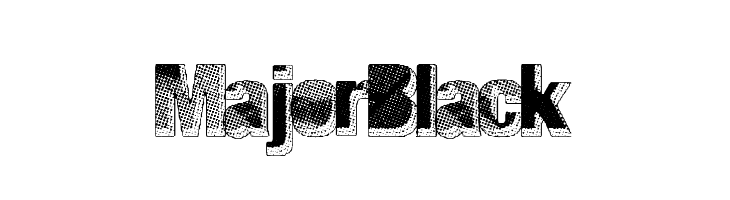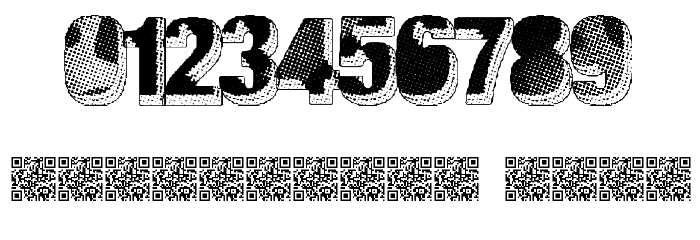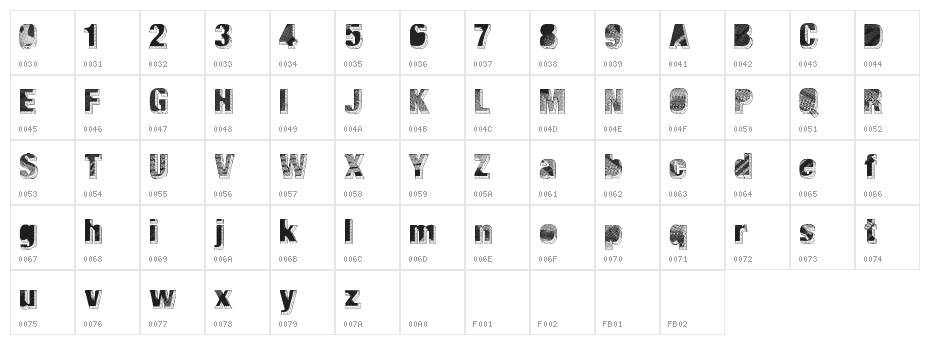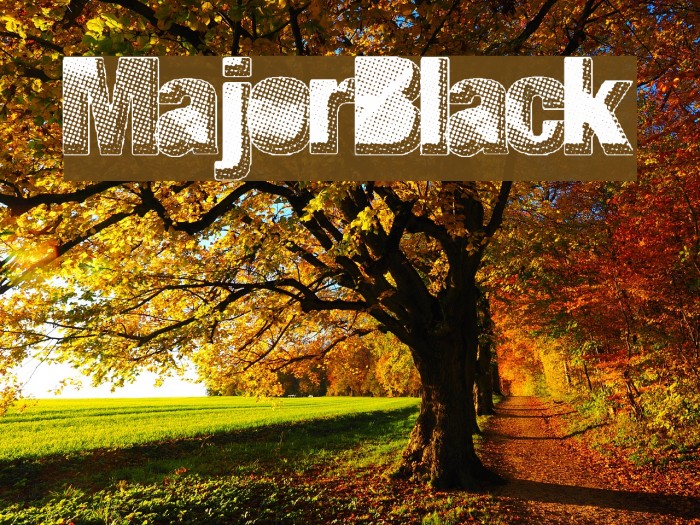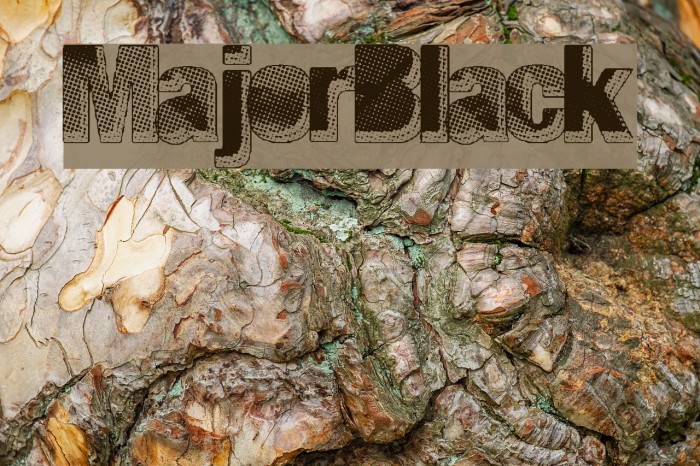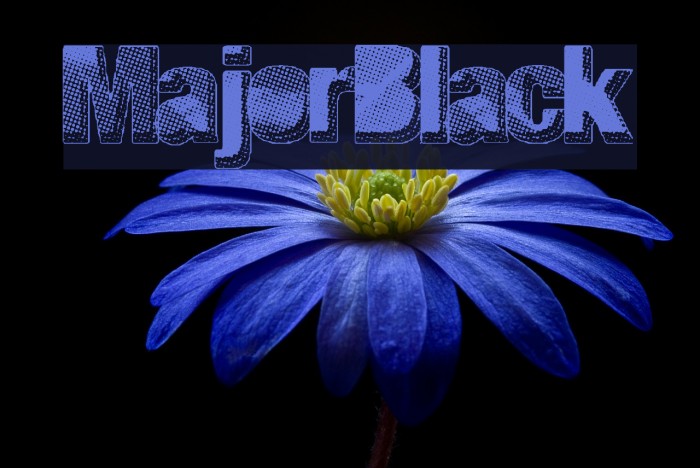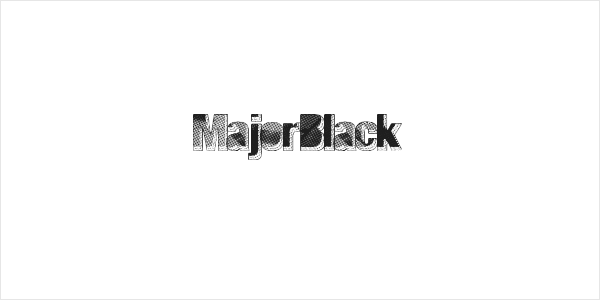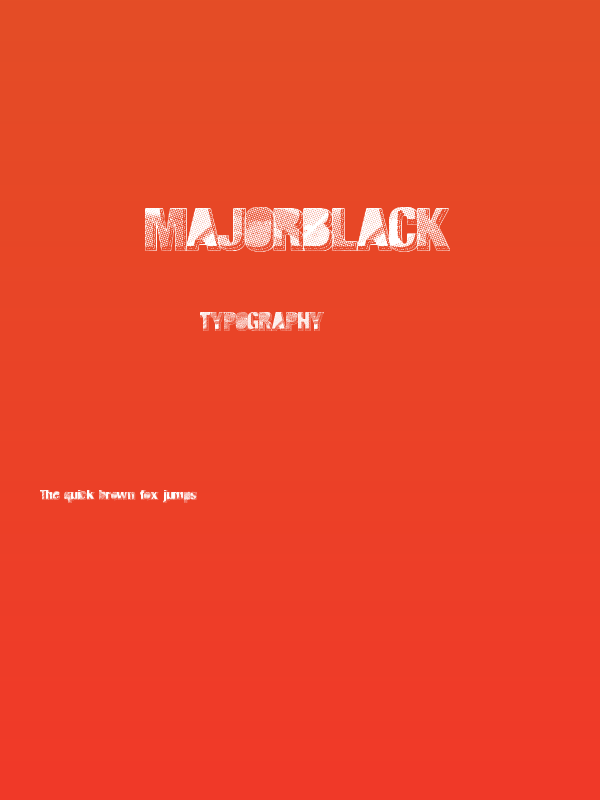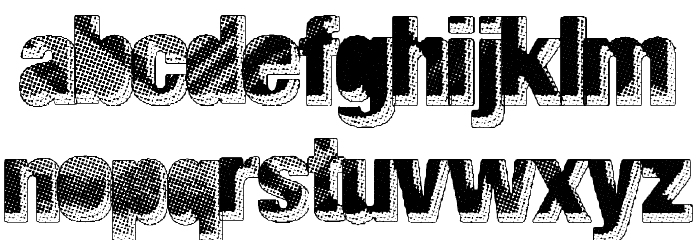
MajorBlack Font
MajorBlack Description
This font features a bold, decorative style with a unique halftone texture that gives it a vintage, comic book-like appearance. The characters are uppercase and lowercase letters, numbers, and a selection of special characters. The bold weight and textured fill create a striking visual impact, making it ideal for attention-grabbing designs. The font's design is reminiscent of retro print styles, with a playful yet robust presence. Its thick strokes and textured patterns make it stand out, suitable for projects that require a strong visual statement.
A bold, decorative font with a vintage halftone texture from Uncategorized fonts.
- Proposed Projects: Ideal for posters, comic book titles, retro-themed designs, and branding that requires a bold statement.
- Overall Style: Vintage